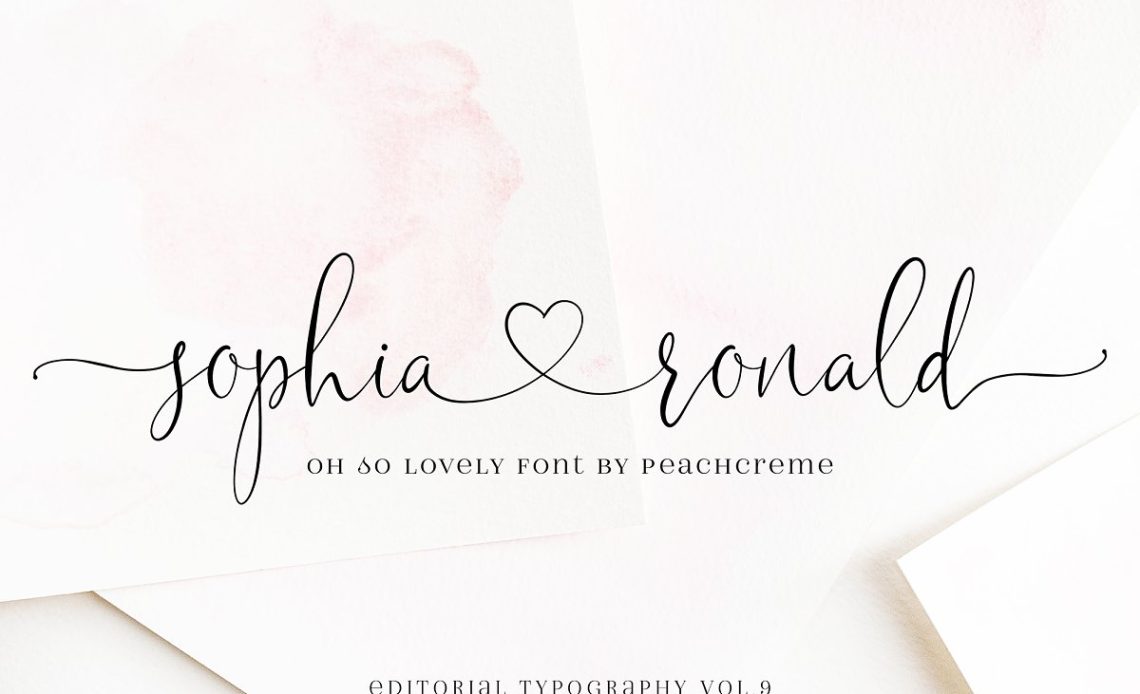
Introducing Sophia Ronald, the Lovely Script Font designed by PeachCreme, the ultimate font family for all your creative projects. With its modern calligraphy style, this font is perfect for adding an elegant touch to your designs.
The updated version of Sophia Ronald now includes ligatures for heart alternatives, making it even more versatile and perfect for expressing emotions. You can type all swashes from your keyboard using various combinations, including short lowercase beginning and ending swashes, letters with connecting hearts, and initials connected with a heart.
This font is not just aesthetically pleasing, but it also adds a personal touch to your projects, as it includes alternative lowercase letters with beginning swashes and ending hearts. You can access these alternate glyphs and swashes on both Mac and Windows.
Sophia Ronald is perfect for any project, whether it's designing wedding invitations, creating branding materials, or even crafting a social media post. It's also perfect for adding a personal touch to any project.